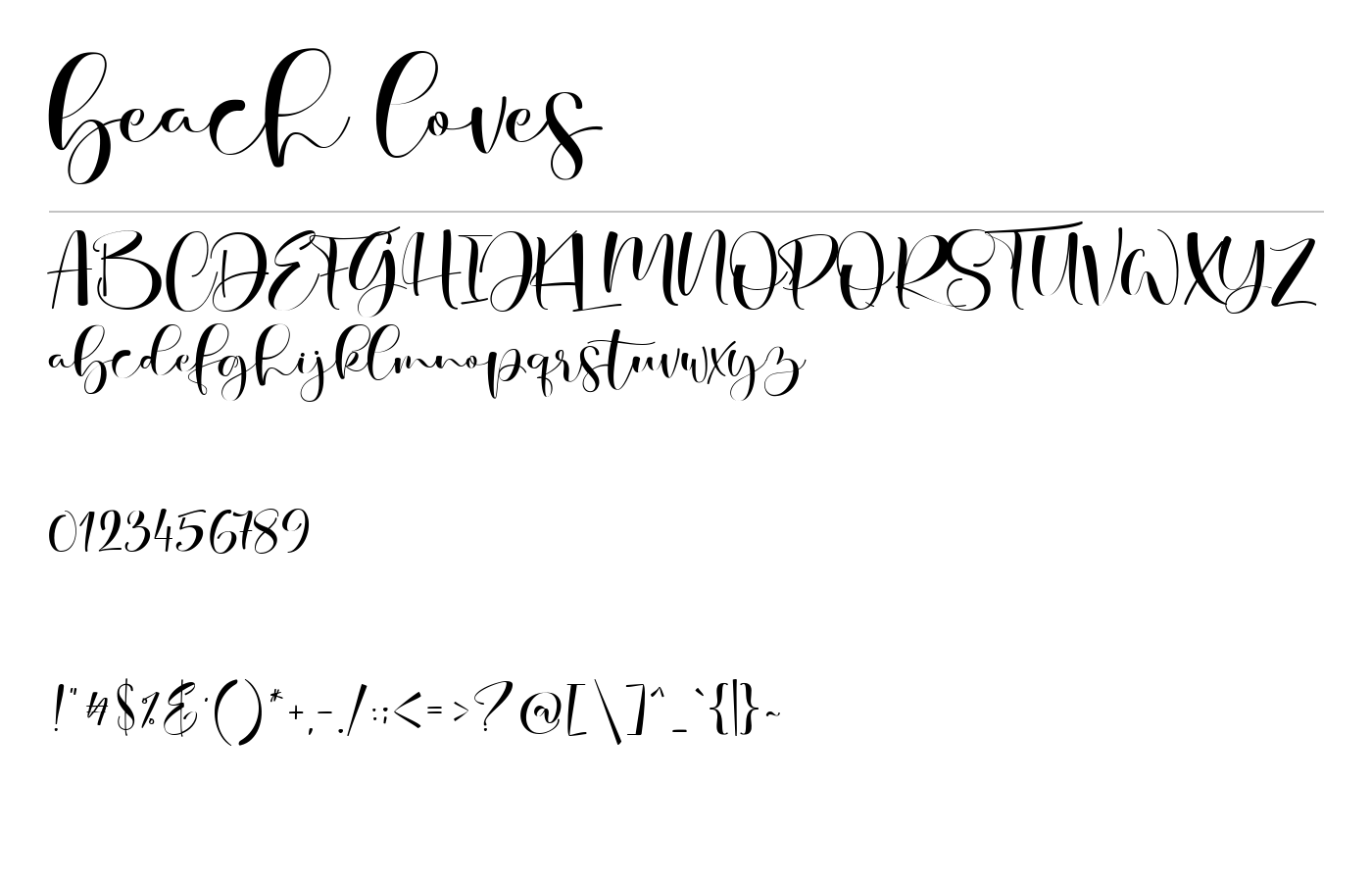
Beach Loves is an elegant script font characterized by its flowing, hand-lettered style with graceful swashes and varied stroke thickness. It exudes a playful yet sophisticated charm, making it perfect for feminine branding, wedding invitations, and stylish packaging that seek a personal, artistic touch. This font shines in headlines and decorative text where its unique letterforms can truly stand out.
beach loves Font
About beach loves Font
| Font family | beach loves Font |
| Designer | Gilar Studio |